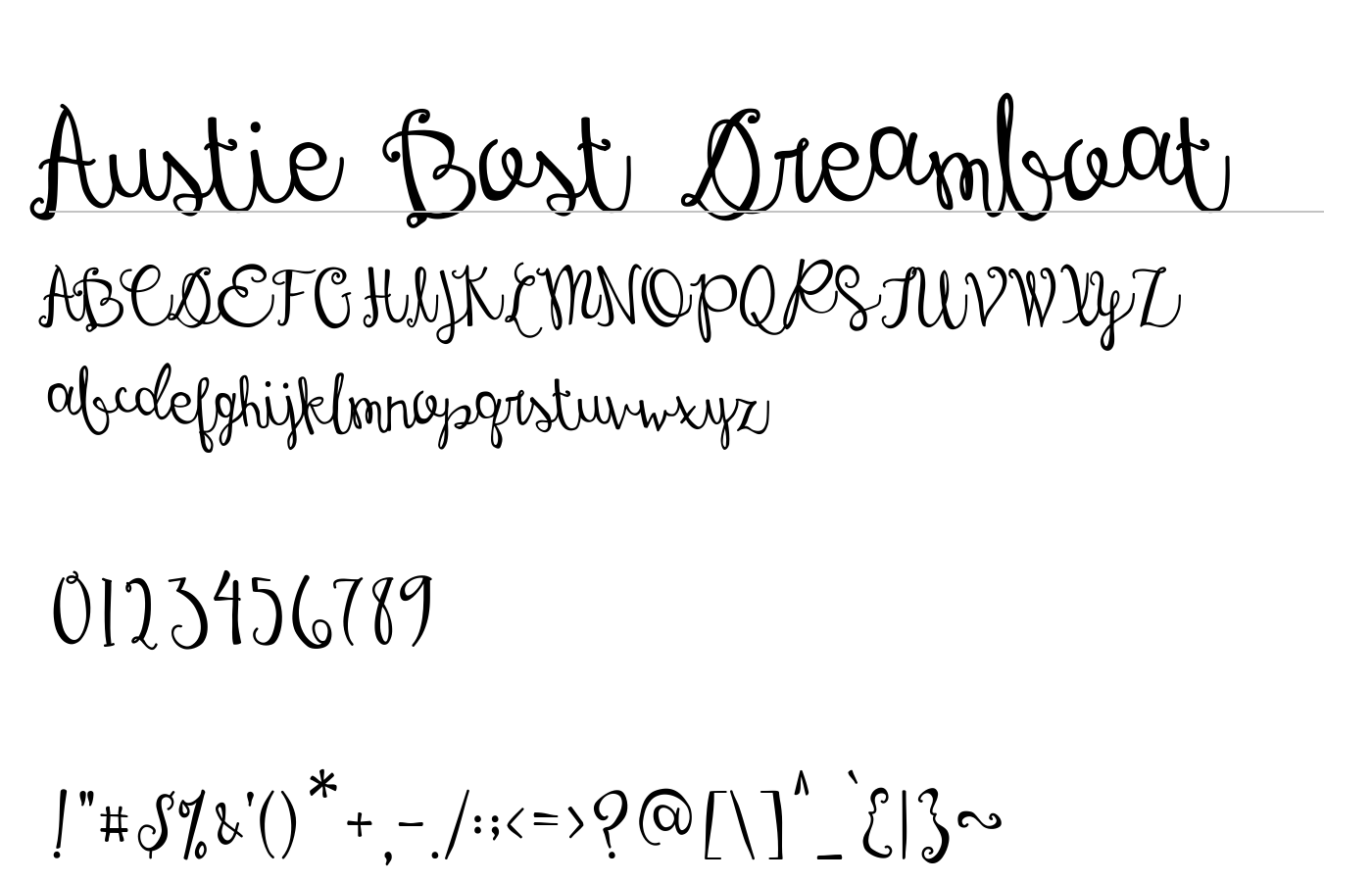
Austie Bost Dreamboat is a whimsical, hand-drawn script font with a playful and delicate feel. Its tall, slender letterforms feature unique loops and curls, giving it a charming, casual personality perfect for creative, fun, and informal designs. This font works beautifully for invitations, greeting cards, and branding that seeks a lighthearted, personal touch.
Austie Bost Dreamboat Font
About Austie Bost Dreamboat Font
| Font family | Austie Bost Dreamboat Font |
| Designer | Austin Owens |